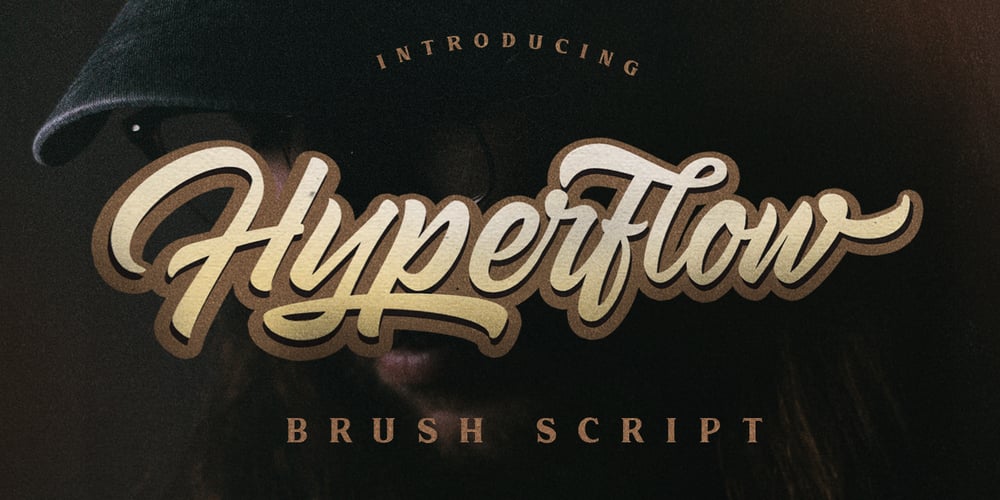
Hyperflow
Hyperflow font
Hyperflow Font Family was designed by Hendra Maulia and published by Dirtyline Studio. Hyperflow contains 3 styles and family package options. Hyperflow Script was inspired by contemporary fashion and streetwear in combination with Hand Lettering style. I’ve made every single curve with a personality touch. I hope this can inspire you for your work. Hyperflow Script has a very bouncy baseline. It has a perfectly paired complimentary marker font , and a super handy set of bonus Swash. Ideal for logos, handwritten quotes, product packaging, header, poster, merchandise, social media & greeting cards.